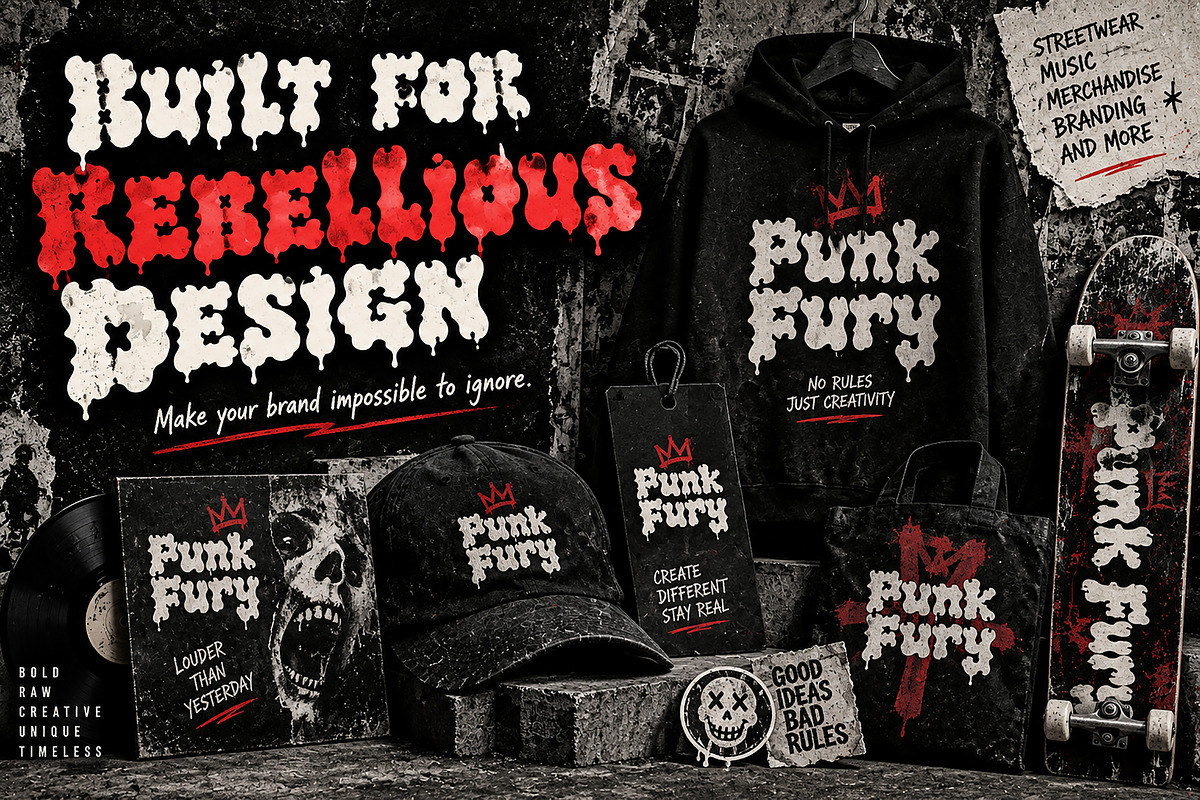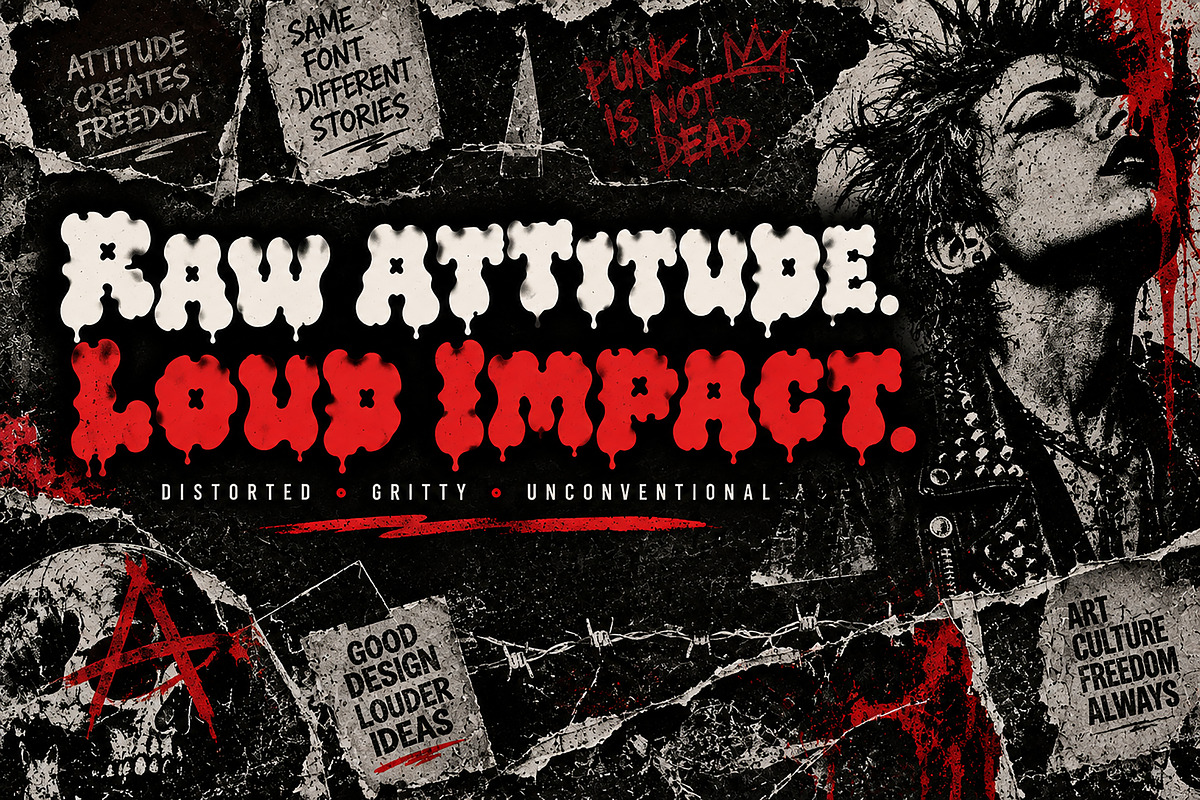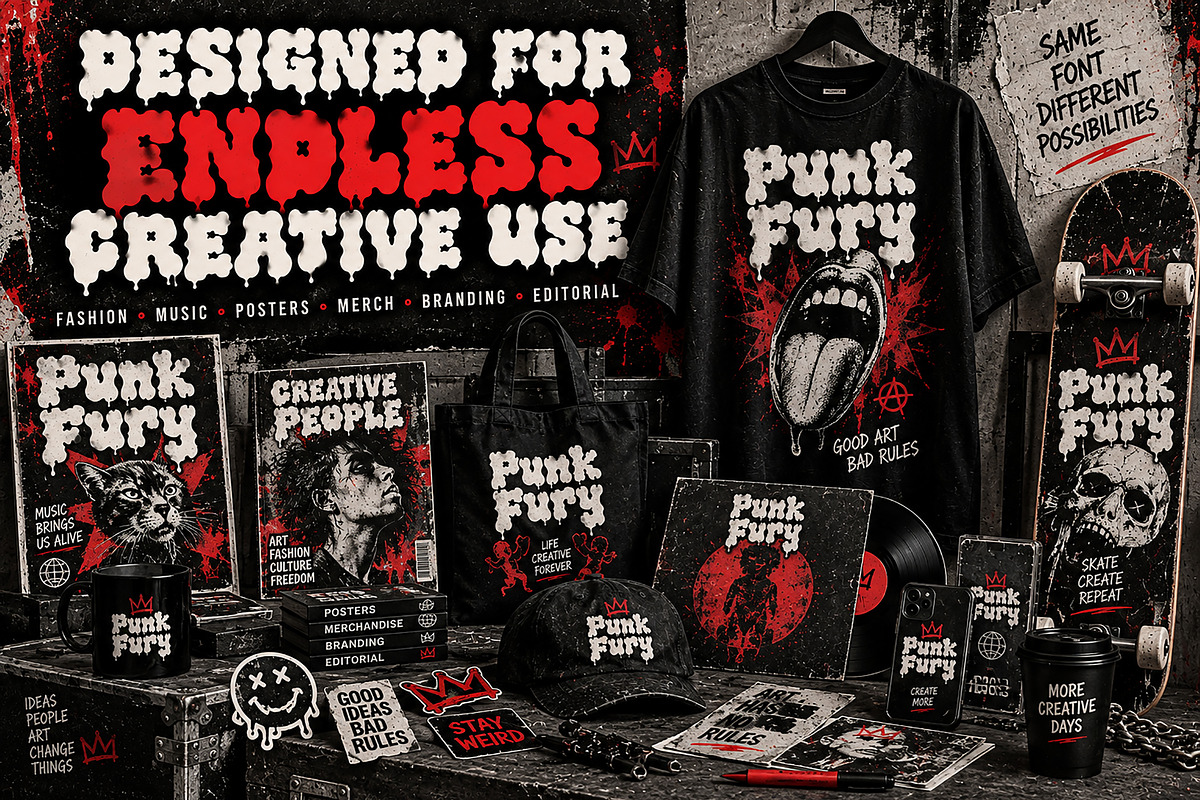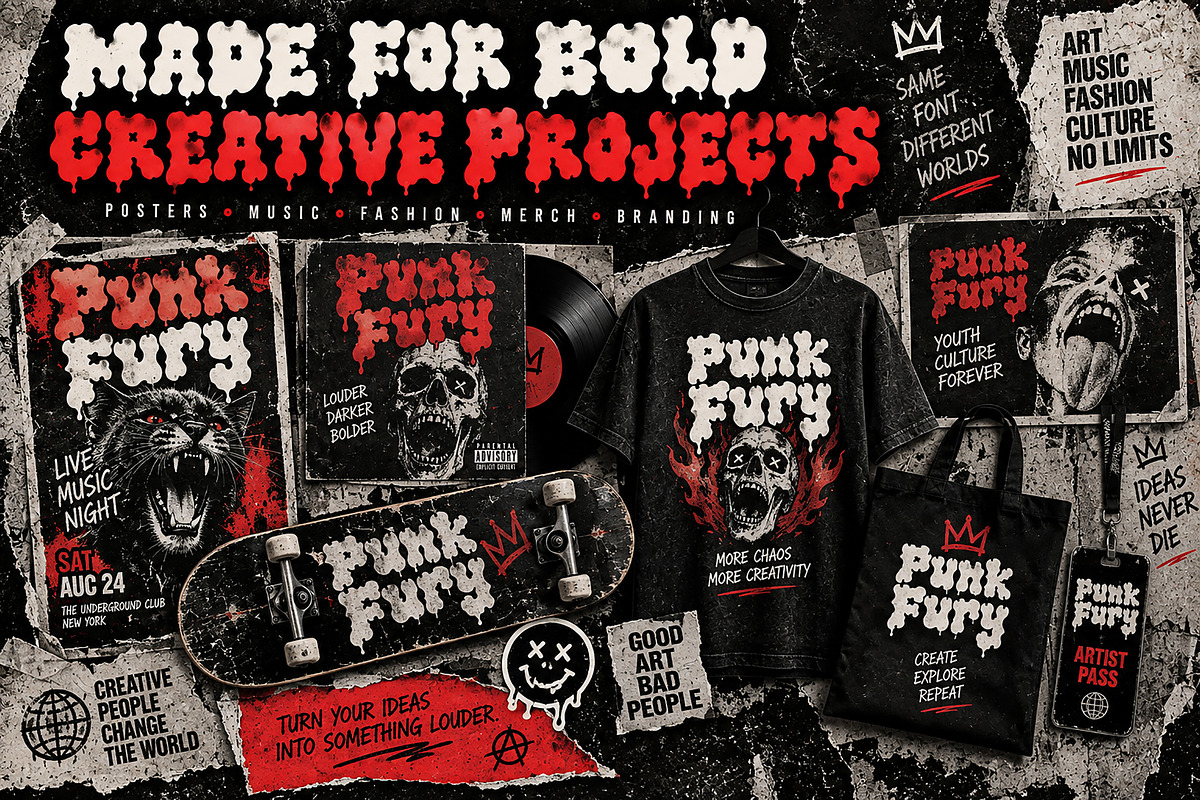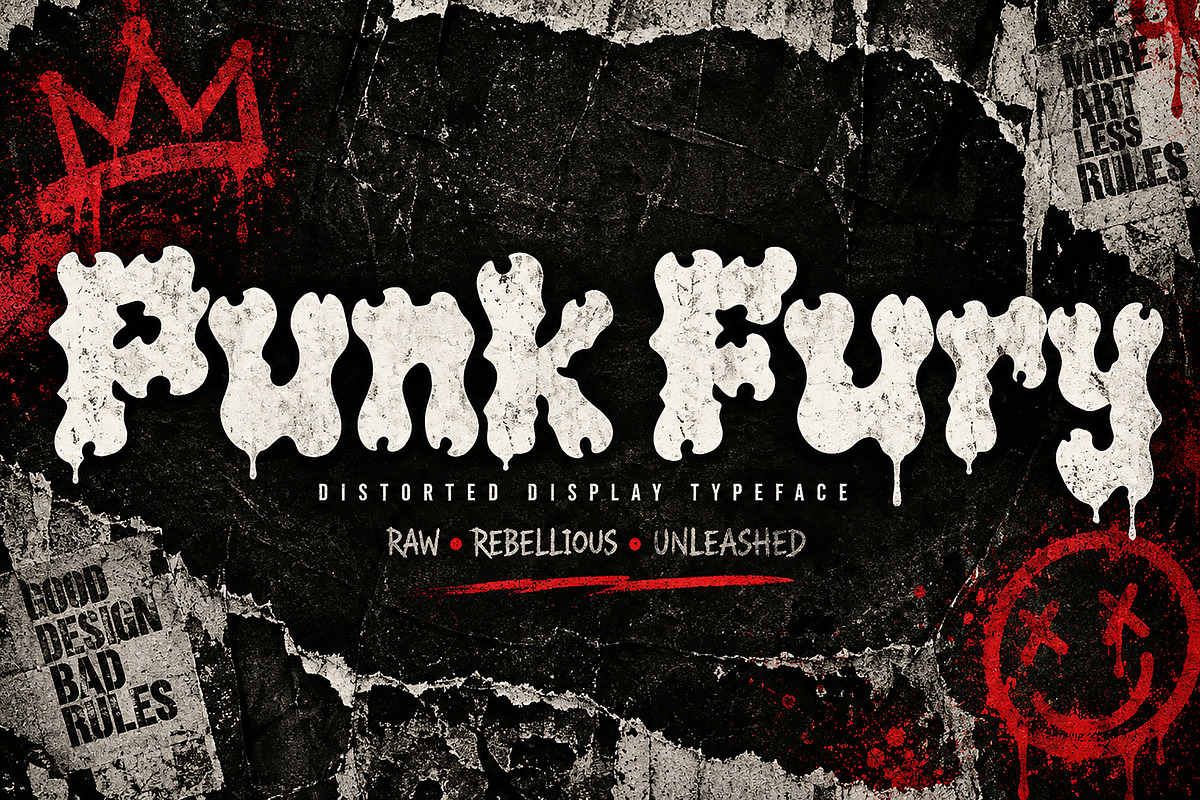
Punk Fury
Punk Fury is a raw, rebellious, and heavily distorted display font created for designs that demand attention. With its melted shapes, irregular forms, bold silhouettes, and underground attitude, Punk Fury brings an edgy punk-inspired character to posters, branding, apparel, music artwork, and experimental graphic design.
Designed to create an instant visual impact, Punk Fury works especially well for streetwear graphics, punk and rock posters, album covers, concert artwork, merchandise, skate designs, alternative branding, editorial graphics, stickers, labels, and social media designs.
Its unconventional appearance makes it an excellent choice when you want your typography to feel gritty, expressive, aggressive, unconventional, and memorable.
Punk & Rock Posters
Streetwear & Apparel
Album & Music Artwork
Concert & Event Graphics
Alternative Branding
Skateboard Graphics
T-Shirt Designs
Stickers & Labels
Editorial Designs
Posters & Flyers
Creative Advertising
Experimental Typography
Style: Distorted / Punk / Grunge / Display
Recommended Use: Headlines, posters, branding, apparel, merchandise, music artwork, and other creative display projects
Punk Fury is made for designers who want typography with attitude. Break the rules, make an impact, and turn ordinary designs into something loud and unforgettable.